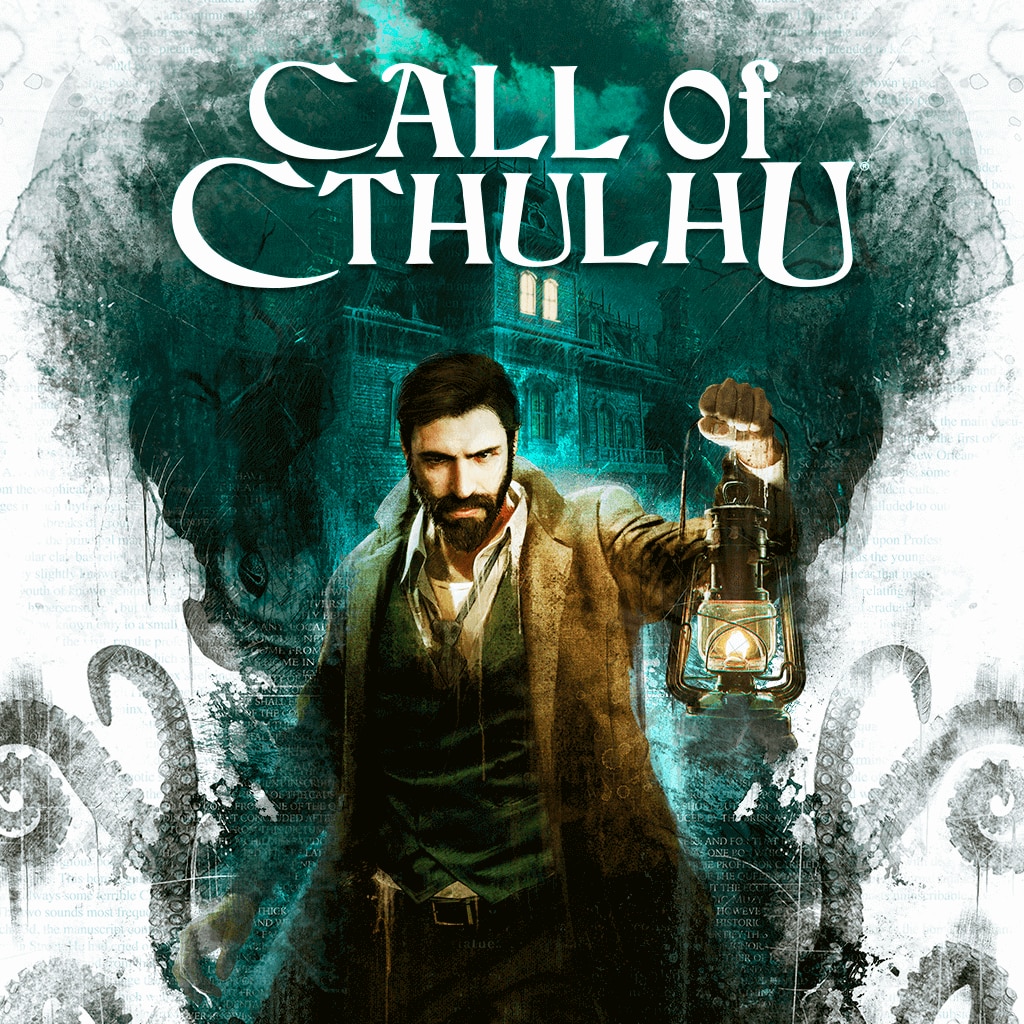
Call of Cthulhu Font
Fonts in UseCall of Cthulhu is a survival horror video game based on the H.P. Lovecraft's story of the same name. Players assume the role of a private investigator as he uncovers the mysteries of an eerie island and its inhabitants.
The Call of Cthulhu logo lettering bears a striking resemblance to the JMH Cthulhumbus font designed by Jorge Morón. It is available for free for personal use and can be downloaded from the Fonts Used Section.